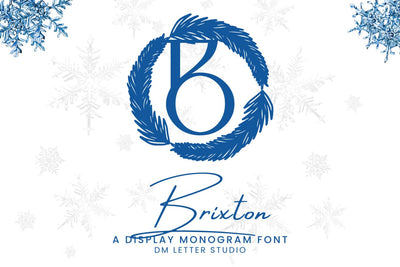
Brixton Monogram Font
Meet Brixton, the Monogram Font
Brixton Monogram Font turns simple initials into bold, boutique-ready emblems with modern clarity. Strokes feel smooth and confident. Generous counters keep tiny tags readable, while balanced proportions deliver a premium look at any size. Use it for wedding suites, boutique logos, keepsake gifts, wax seals, and elegant packaging. In addition, Brixton pairs beautifully with refined serifs and quiet humanist sans fonts, so layouts stay polished without extra work.
Where this monogram font shines
Set single, double, or triple initials for logos, seals, menus, and place cards. Then frame them with laurel rings, oval borders, or fine rules to echo the poised geometry. Since the metrics favor symmetry and clarity, you can compose centered marks in minutes. As a result, thumbnails pop on marketplaces and your listings feel consistent from invitations to signage. Brixton also scales smoothly from jewelry cards to entry displays.
Design tips for Brixton Monogram
Keep initials large and let white space breathe. Pair the headline monogram with a soft serif for body text or a clean sans for labels and dates. Add micro shadows, a fine inner stroke, or a delicate frame to create depth. Because the forms feel airy and balanced, textured papers and metallic accents raise perceived value. However, keep wording short so the monogram remains the hero—especially on small favors and tags.
Select stylistic alternates for key letters
Curves tuned for foil, letterpress, engraving, laser cutting, and clean vinyl paths
Why creators choose Brixton
You want elegance that reads at a glance and sells across many product types. Then, Brixton Monogram Font delivers steady clarity, fast layout, and a cohesive brand voice from invites to packaging and gifts.